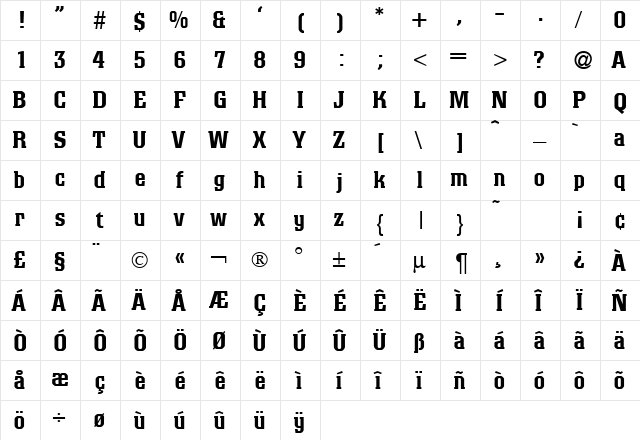
CologneLarge Normal
Design Context for CologneLarge Typeface
CologneLarge takes a measured approach to typography — its balanced proportions and neutral character make it a reliable workhorse for both digital and print work.